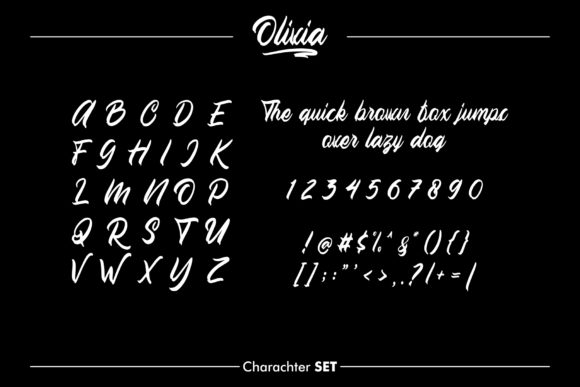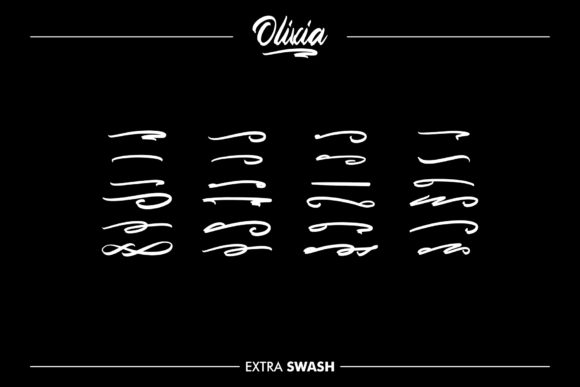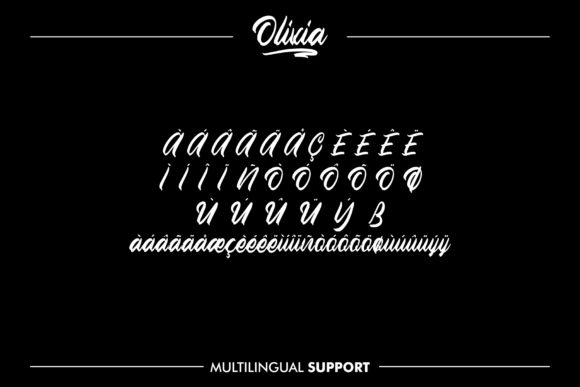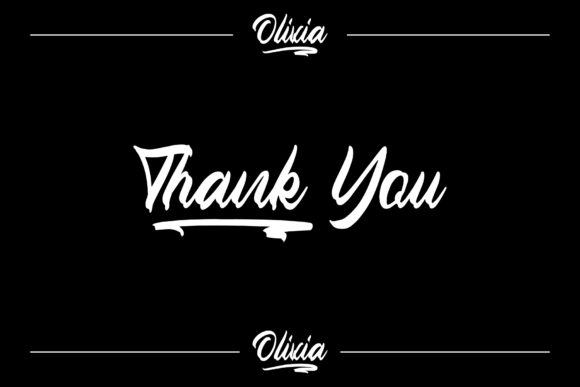
Olivia Font
About Olivia Font
The Olivia is a clean and aged style font. It has a classy, handwritten feel which is perfect for logos, apparel, invitations, branding, packaging, and much more!